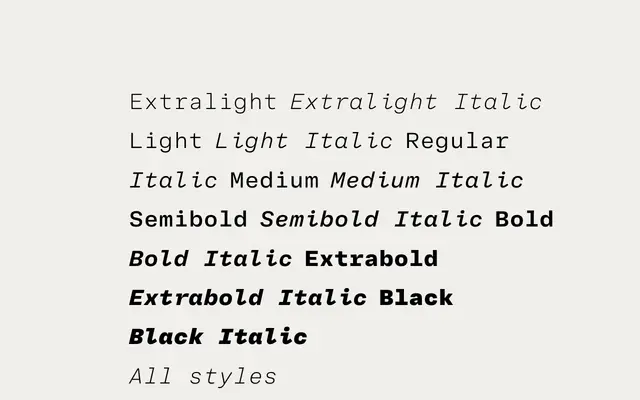
Adapter Mono PE
A monospaced family from Rosetta with eight weights, cursive italic alternates and a steeper italic angle optimised for screen legibility across Latin, Greek and Cyrillic scripts.
Unlike most monospaced fonts, Adapter Mono PE spans eight weights from Extralight to Black, each with a matching italic that includes cursive alternates for greater differentiation at small sizes. The italic is slanted at a steeper angle than its proportional antecedent, Adapter, to remain distinct on screen. Script coverage extends to Latin, Greek and Cyrillic, and the family ships as a variable font alongside optimised companion styles for coding use.
A monospaced type family explicitly designed for editorial, coding and UI work, with cursive italic alternates and an unusually wide weight range for the genre.